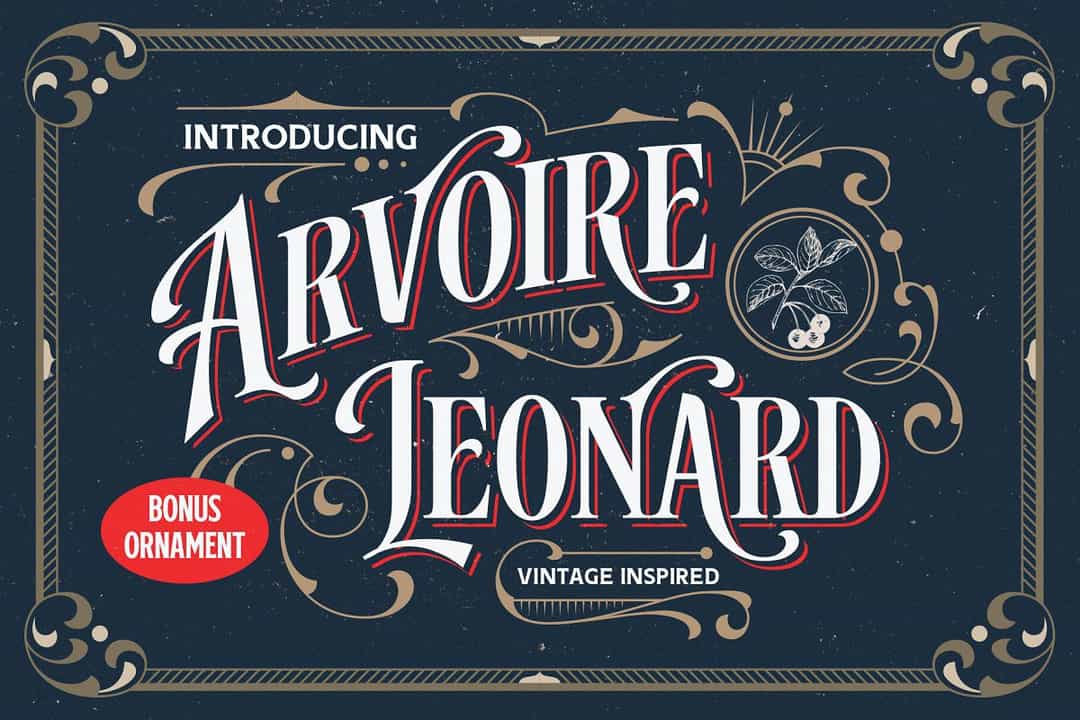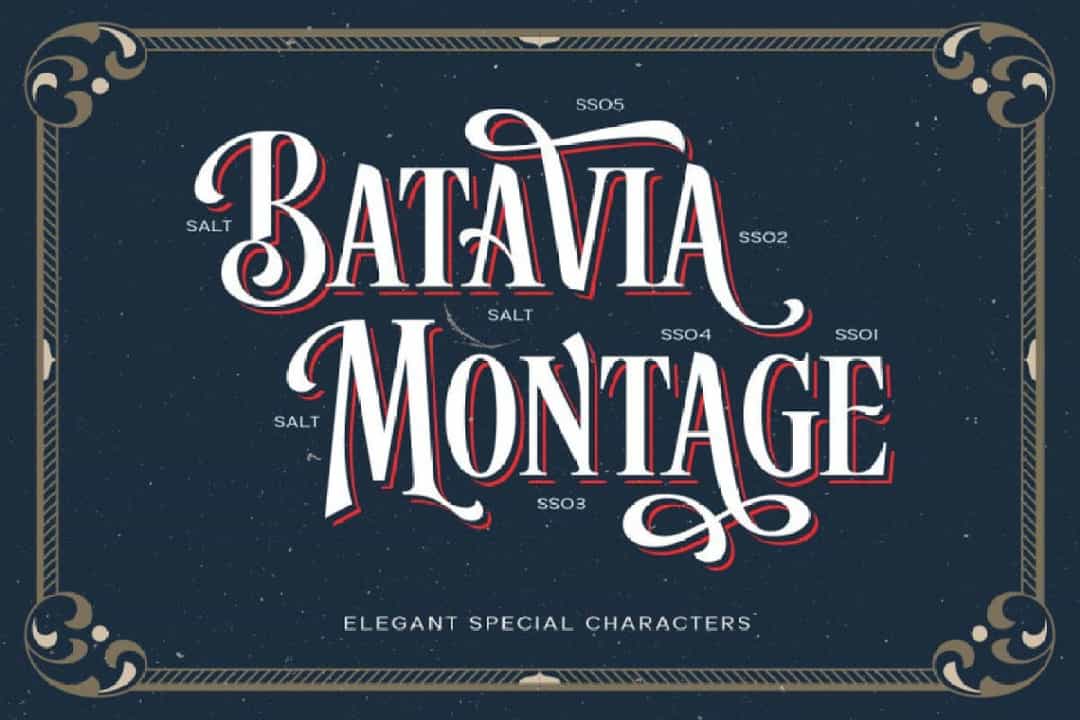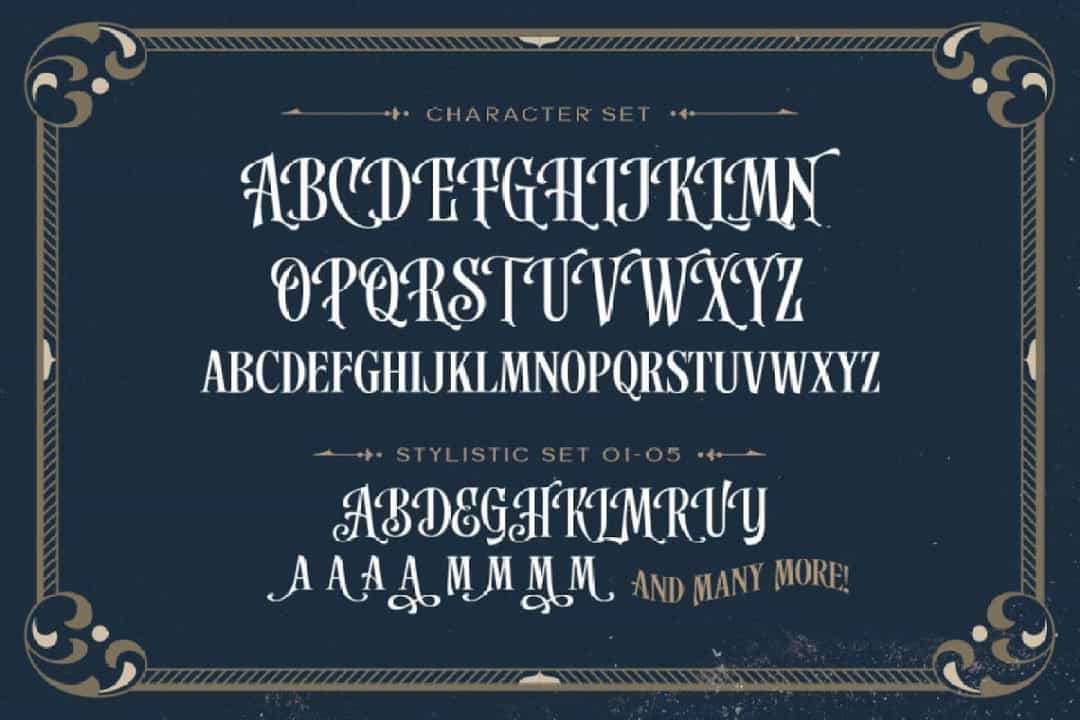
The new exploration that was inspired by the typography of the 19th century, we proudly present “Arvoire Leonard”-the modern vintage font in Regular and Shadow. The images were taken from many sources such as vintage signage, logos, badges and old-fashioned graphics.